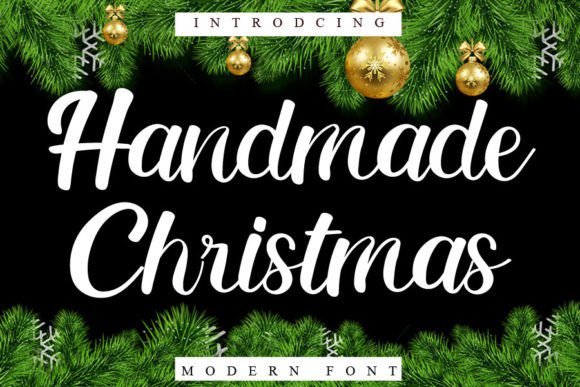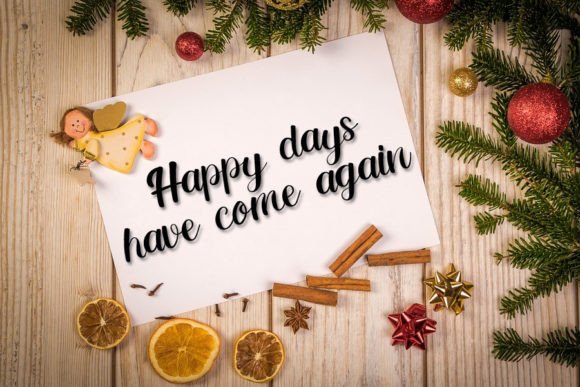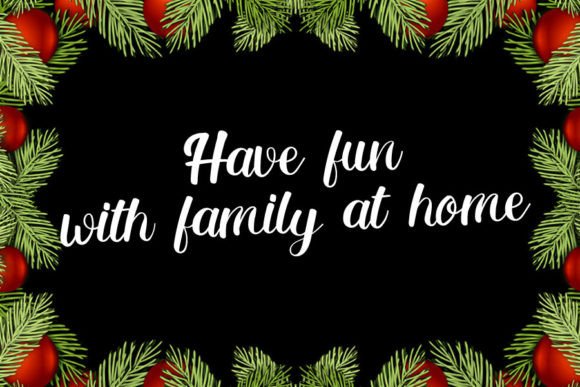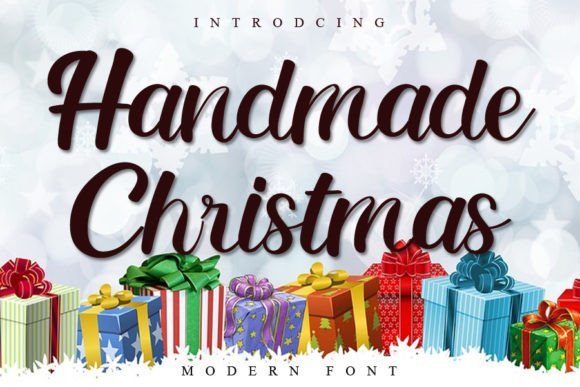
Introduction to Handmade Christmas Font
Handmade Christmas is a fresh and beautiful font, good for your design purposes such as Youtube banners, Cover Logo Mockups, Wedding Invitations, Id Cards, Flayer, and Crafts.
By using this font your business will progress and develop Apart from that this font is simple and unique.
Key Features of Handmade Christmas Font
Why Choose Handmade Christmas Font?
Handmade Christmas Font offers exceptional quality and versatility, making it a valuable addition to your design toolkit. Whether you’re creating for personal projects or commercial use, Handmade Christmas Font delivers professional results.